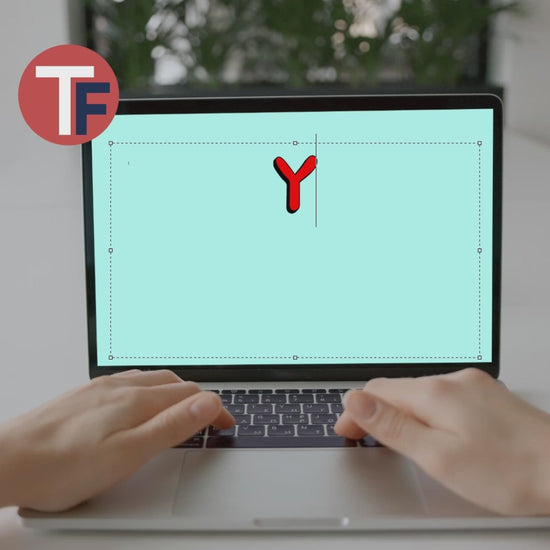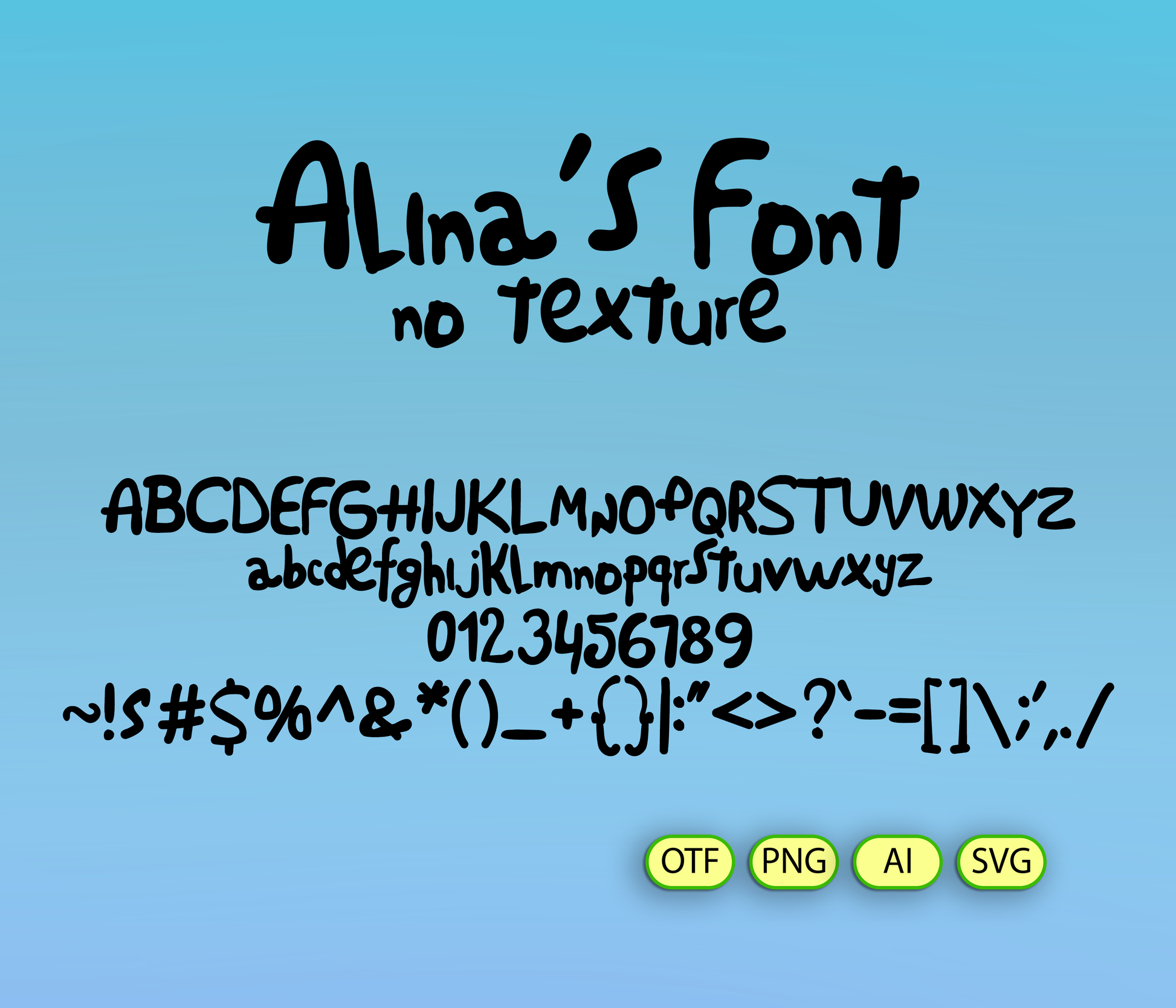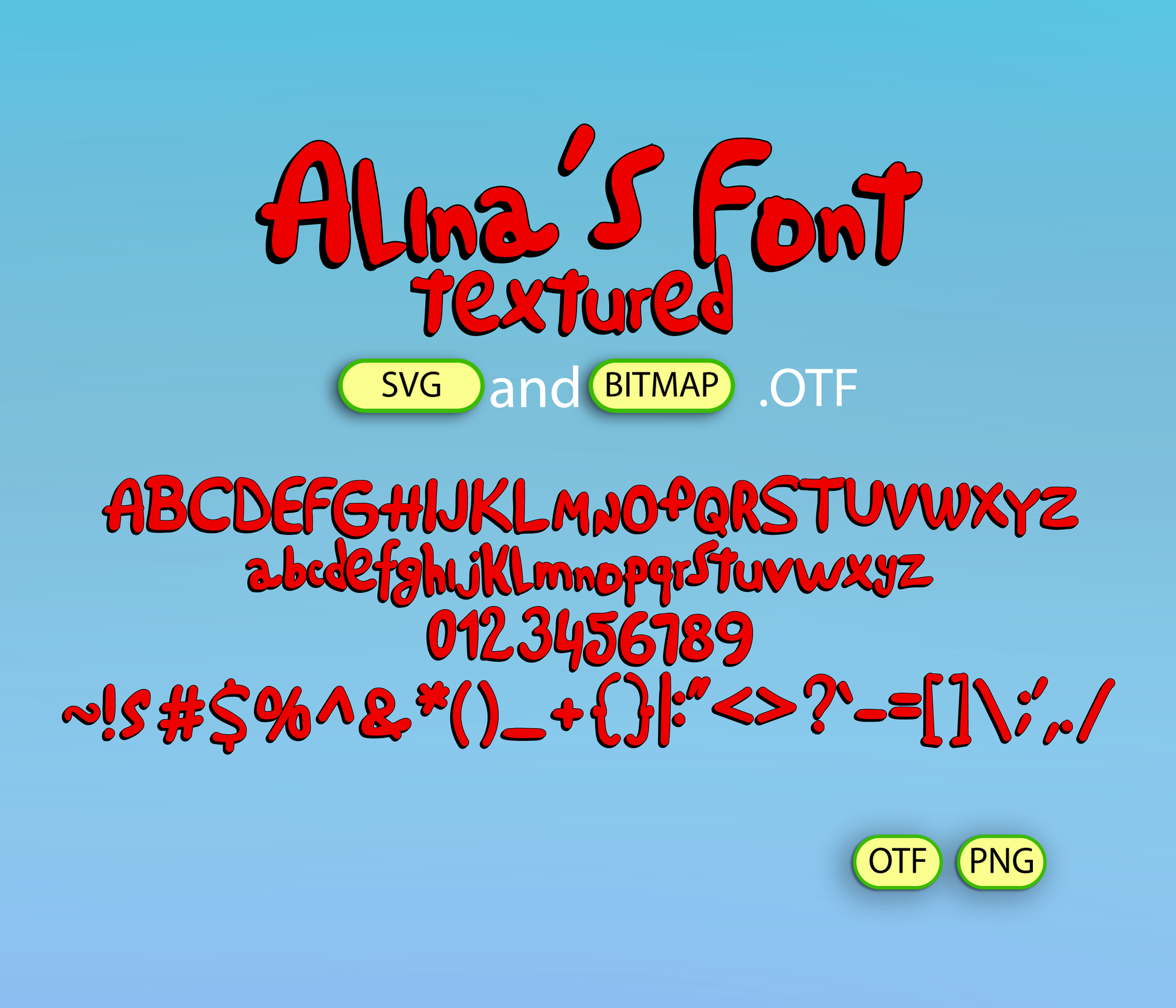
Yellow Family Cartoon Font Textured
Dive into the world of America's favorite animated family with our specially designed font, capturing the essence of Springfield's most iconic residents. Perfect for fans, event organizers, and designers, this font brings the quirky, satirical spirit of the long-running cartoon to your projects. Create event invitations, themed merchandise, or digital content with the playful energy of this beloved animated sitcom.
Our Yellow Family font features round, bouncy characters reflecting the show's distinctive art style. Ideal for:
Our Yellow Family font includes textured and non-textured variants, ensuring compatibility with all software. This feature allows easy incorporation into designs for users of all skill levels.
Many seek an online font generator to mimic the look of the Yellow Family Font. Steer clear! No generator can match the quality of our font, which comes in two versions: a textured yellow font and a simple version, perfect for cutting machines.
Our font pays tribute to the long-running animated sitcom, empowering your designs with its humorous and satirical spirit. Whether crafting promotional materials, designing merchandise, or adding a comedic touch to personal projects, this font communicates the bold essence of America's favorite cartoon family. Ready to inject animated comedy into your creations? This font is your key to fun, impactful design.